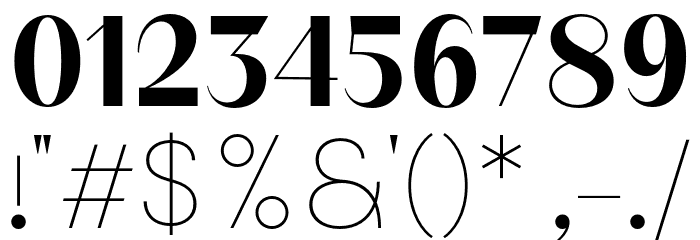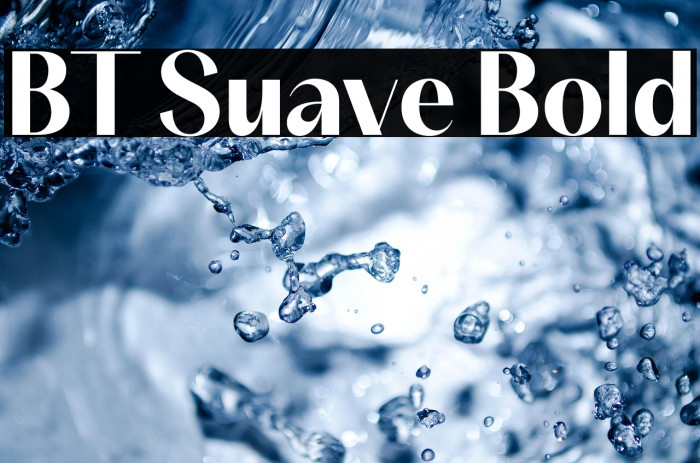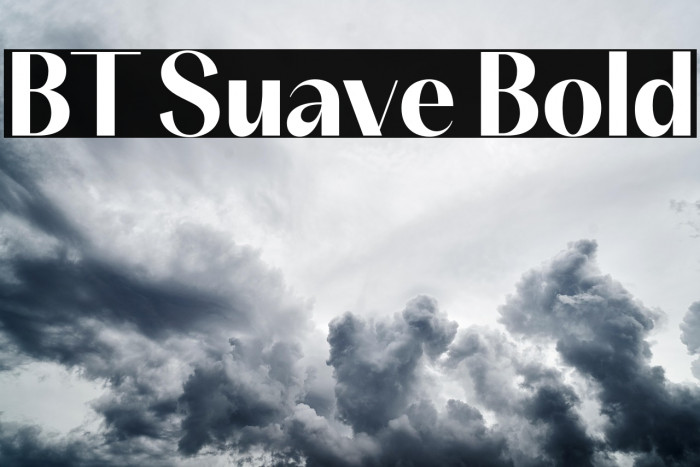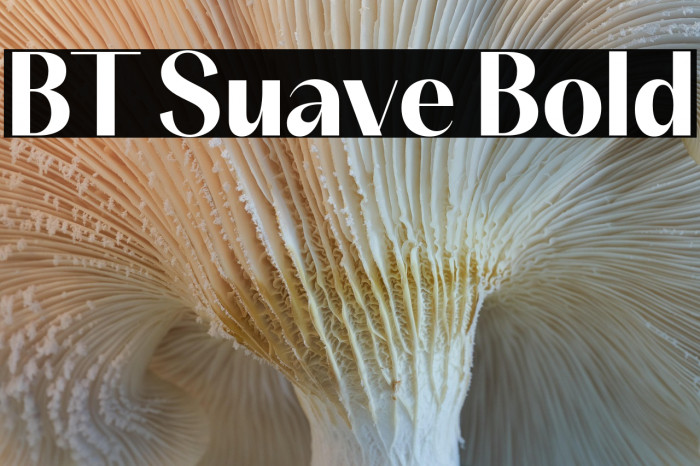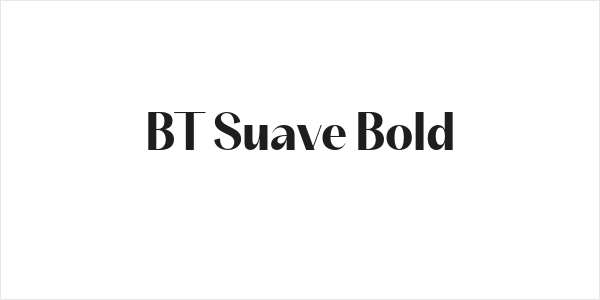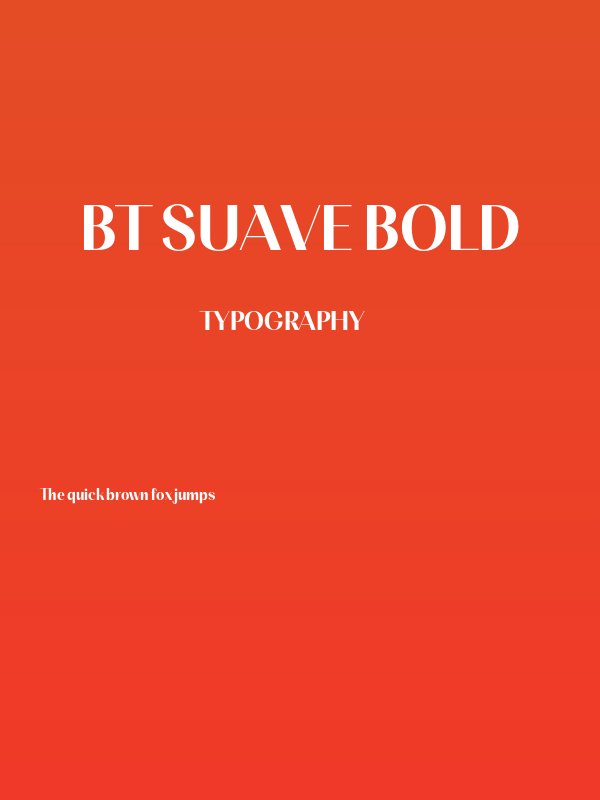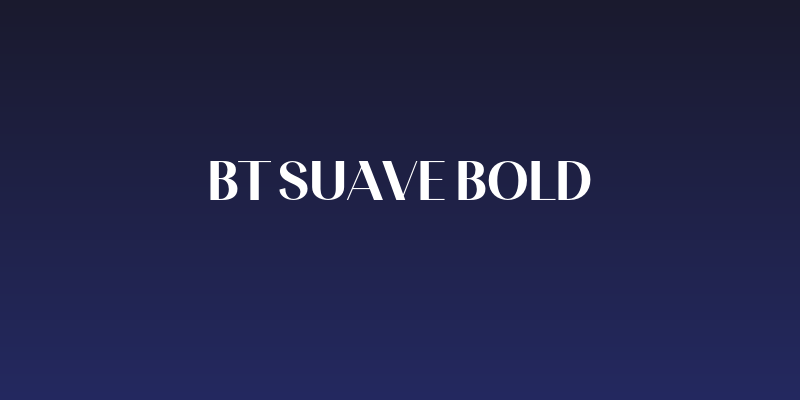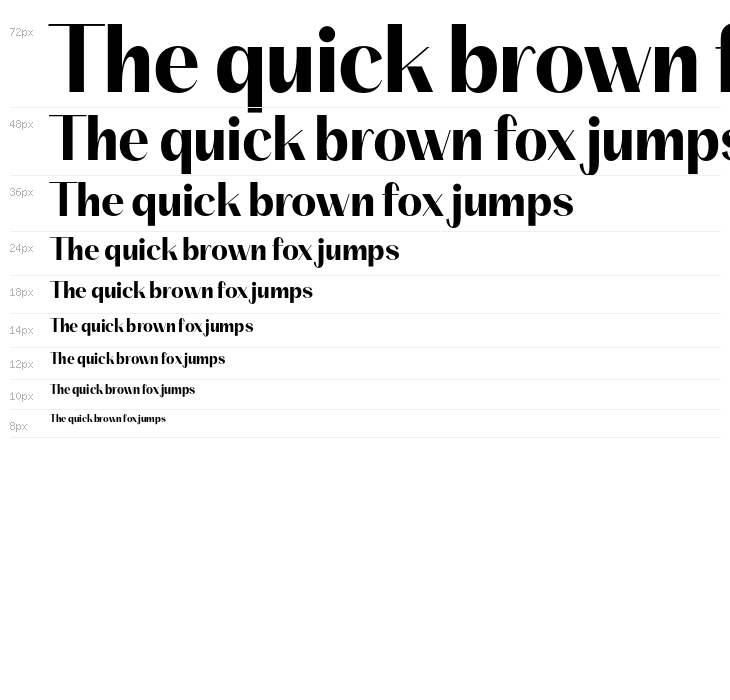
BT Suave Bold Font
BT Suave Bold Description
This font features a bold and striking design with a modern flair. The uppercase letters are characterized by sharp angles and clean lines, giving them a sophisticated and contemporary appearance. The lowercase letters maintain a consistent style, with some unique curves that add a touch of elegance. The numerals are bold and easily readable, making them suitable for various applications. Special characters are well-designed, complementing the overall aesthetic. The font's high contrast between thick and thin strokes enhances its visual impact, making it ideal for attention-grabbing headlines and logos.
| Proposed Projects | Ideal for branding, logo design, magazine headlines, and advertising materials. |